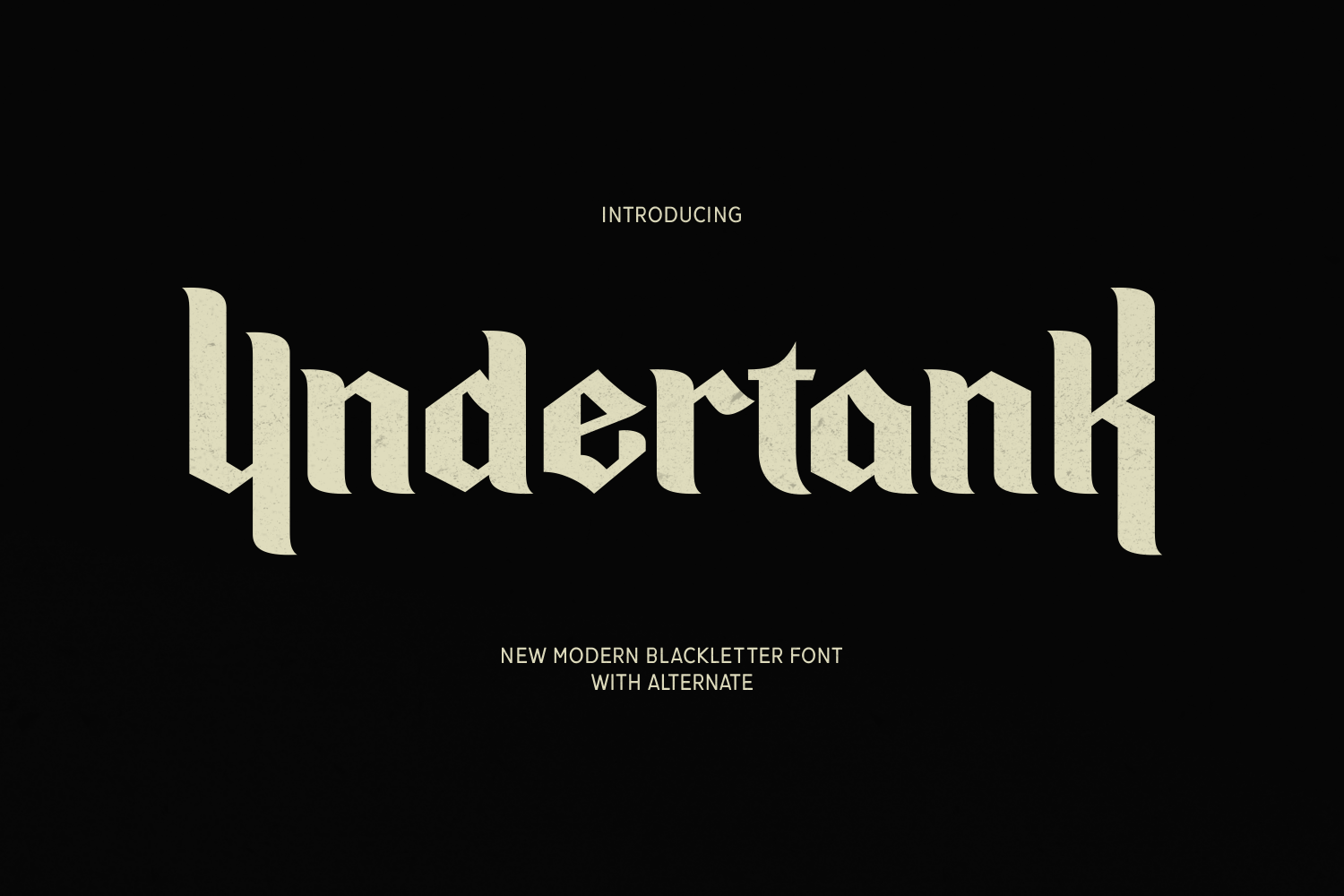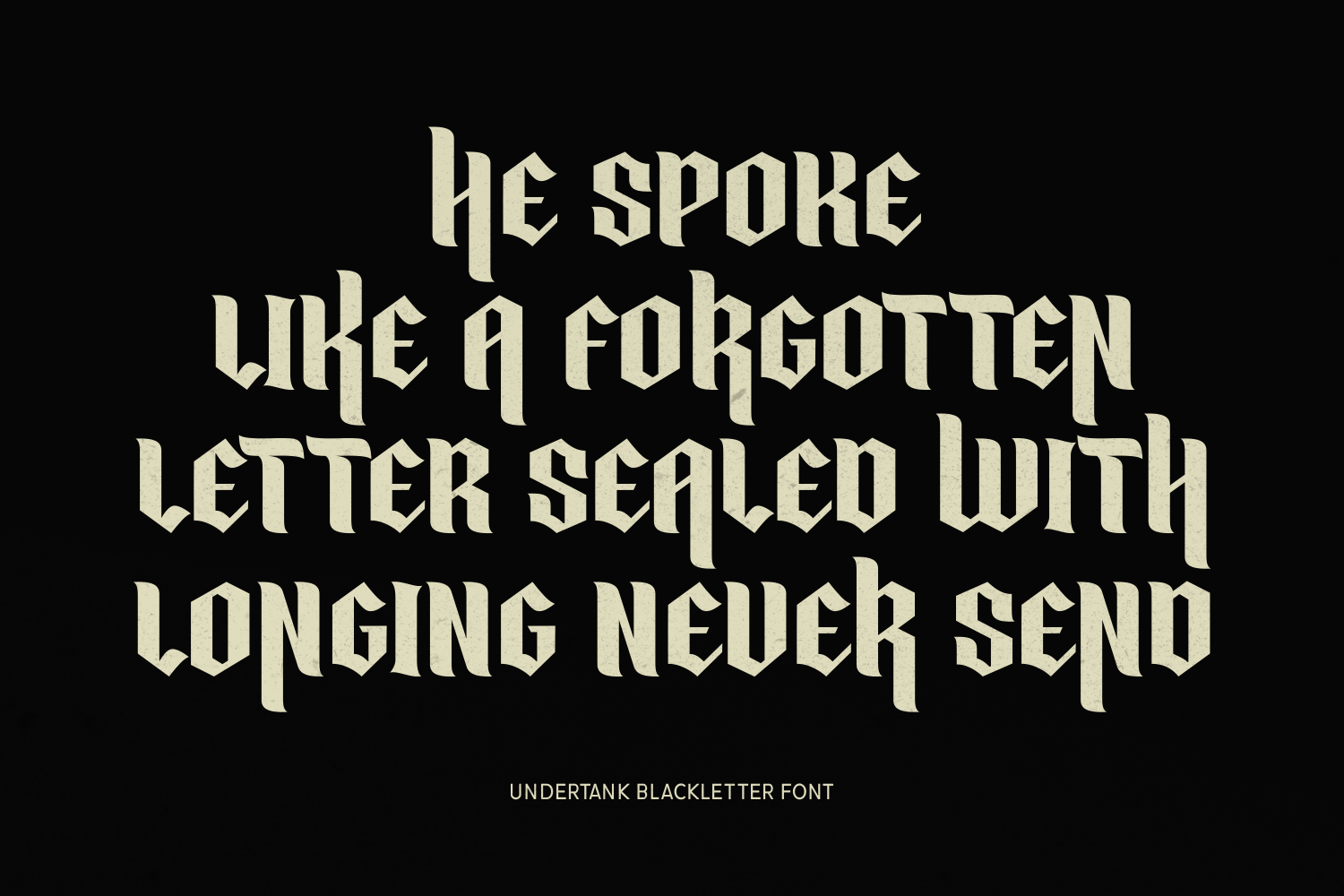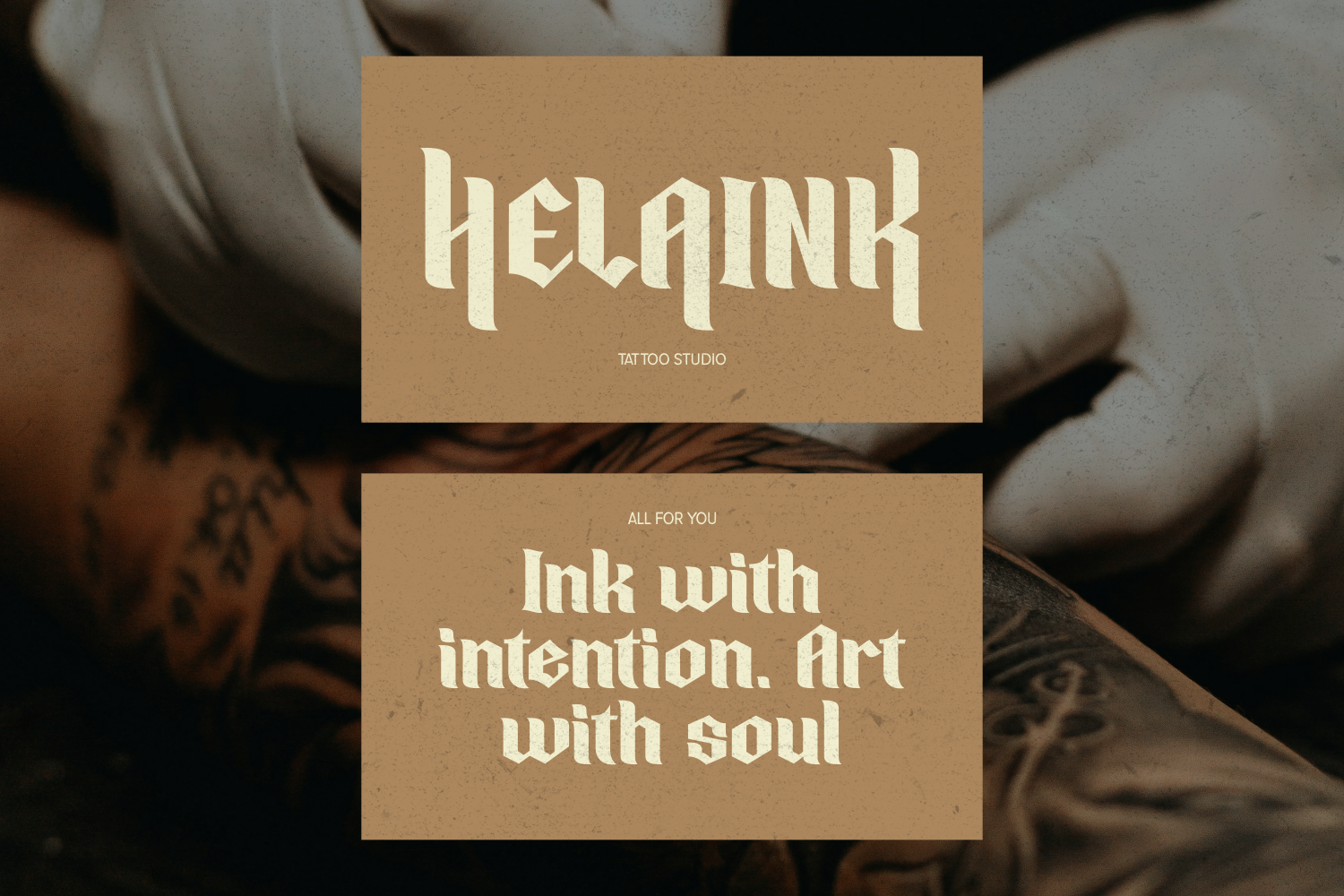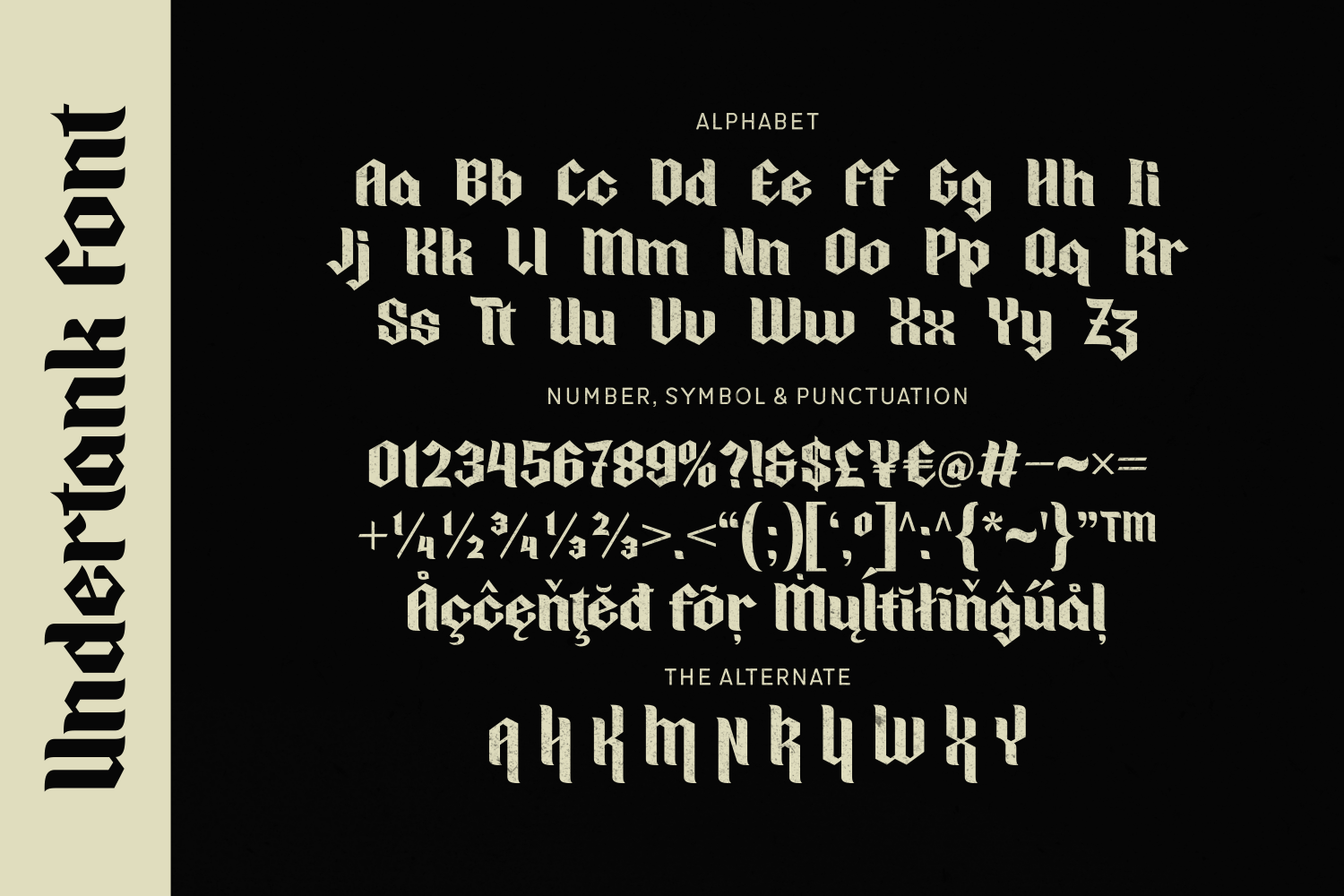
Undertank is a modern blackletter typeface with sharp edges and minimalist elegance. Excellent for branding, editorial layouts, and bold typographic statements.